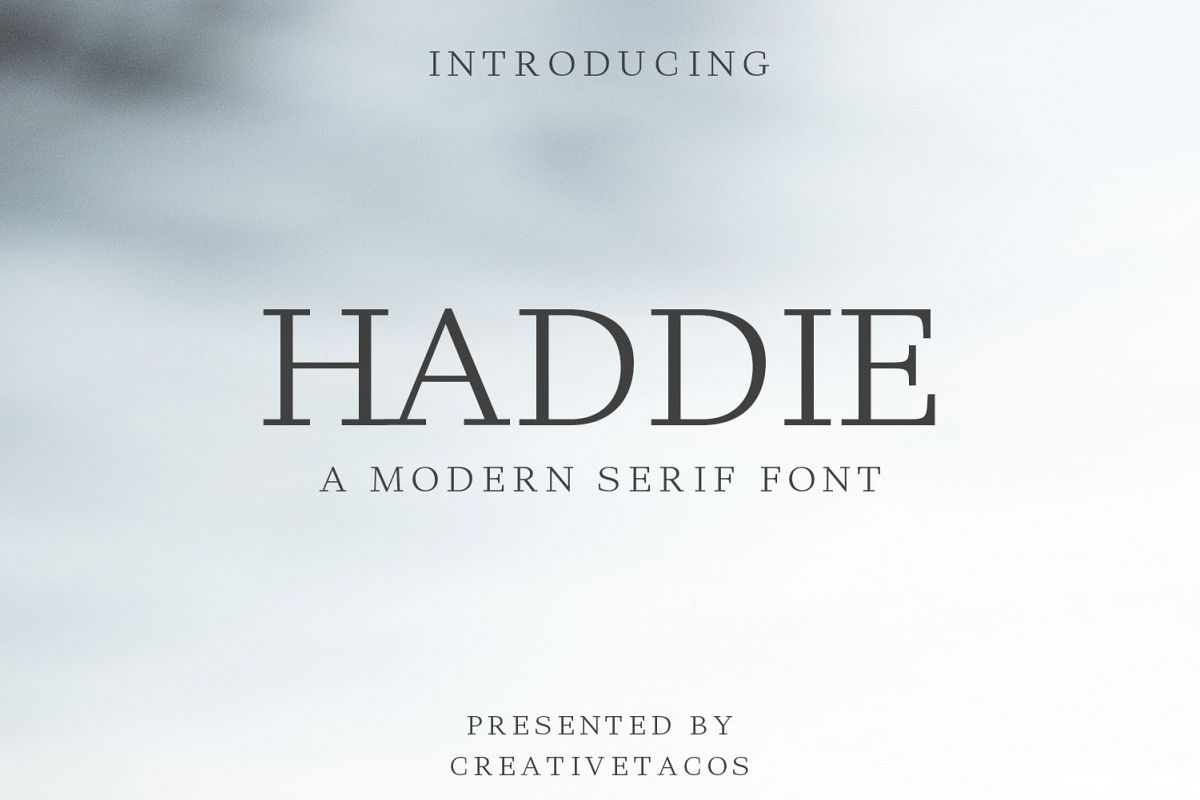
Haddie Modern Serif Font Family
Haddie is a modern and classy serif typeface which will add charm into your designs. It comes with 3 weights: Regular, Round and Bold versions, which contains uppercase and lowercase alphabet, numbers, basic punctuation with multilingual support. This font will pair beautifully with the script, signature or handwriting style.
Haddie can be used for headlines, posters, branding, packaging, presentations, logo, quotes, titles, magazines headings, web layouts, advertising, invitations, packaging design, books, and nearly any creative design.
• Font Weight: Regular, Round and Bold
Haddie Font Features:
• Uppercase Letters
• Lowercase Letters
• Non English Characters ( Latin Supplement + Latin Extended A)